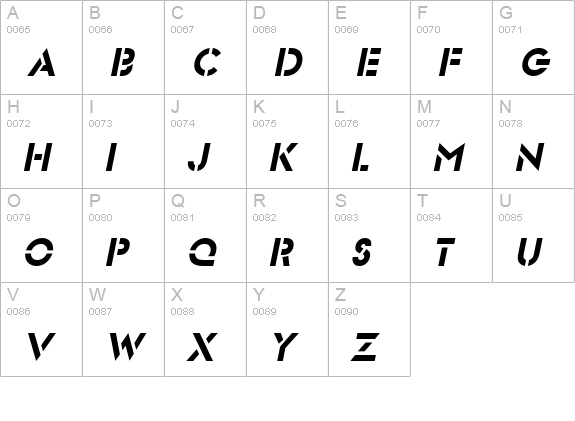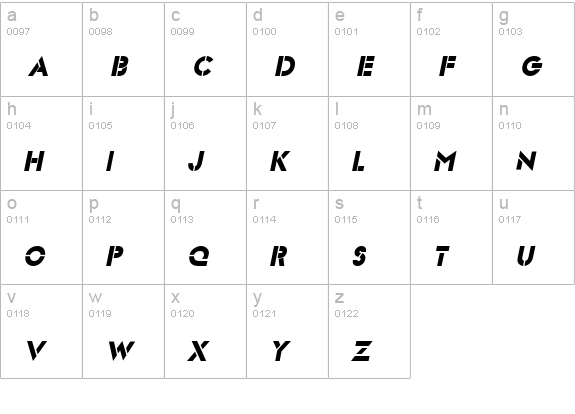
Templett Italic is a distinctive, italic variant in the Templett typeface family \xE2\x80\x94 well suited to design and typography projects.
Templett Italic font is a visually stunning typeface that exudes elegance and sophistication. With its sleek and slanted letterforms, this font adds a touch of modernity to any design project. The Italic variation of Templett offers a unique twist on the traditional font, making it perfect for capturing attention and creating a memorable impression. One of the best parts about Templett Italic font is that it is available for free! You can easily download this font at FontsMarket.com, a trusted source for high-quality fonts. By offering Templett Italic for free, the creators of this font have made it accessible to designers and creatives of all levels, ensuring that everyone can add a touch of style to their work without breaking the bank. Whether you're designing a logo, creating a website, or working on a print project, Templett Italic font will effortlessly elevate your designs to new heights. Its smooth curves and sleek lines make it a versatile choice for a wide range of applications. Use it to add a touch of sophistication to your branding materials, make headlines stand out in editorial layouts, or add a modern flair to social media graphics. With Templett Italic font, you'll have endless possibilities to explore and create. Its versatility and timeless appeal make it a staple in any designer's toolkit. So don't miss out on the opportunity to enhance your designs with this stunning font. Download Templett Italic for free at FontsMarket.com and unleash your creative potential today.